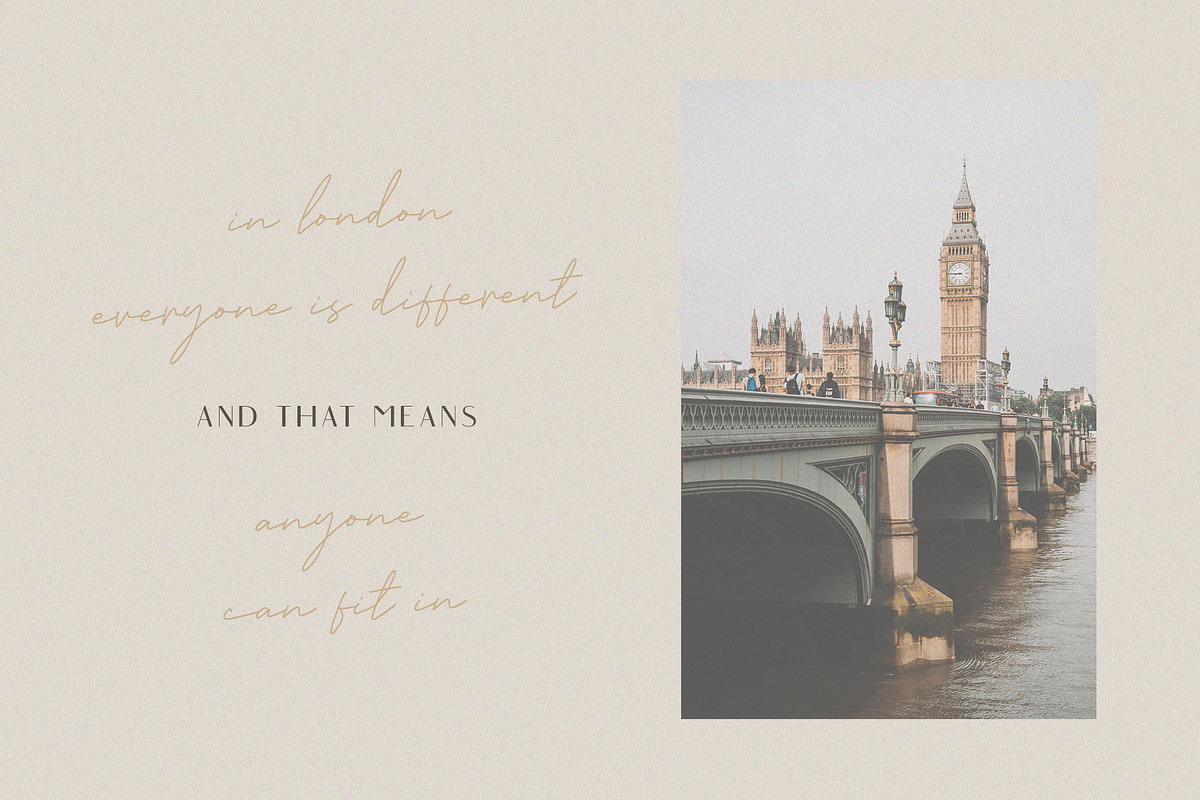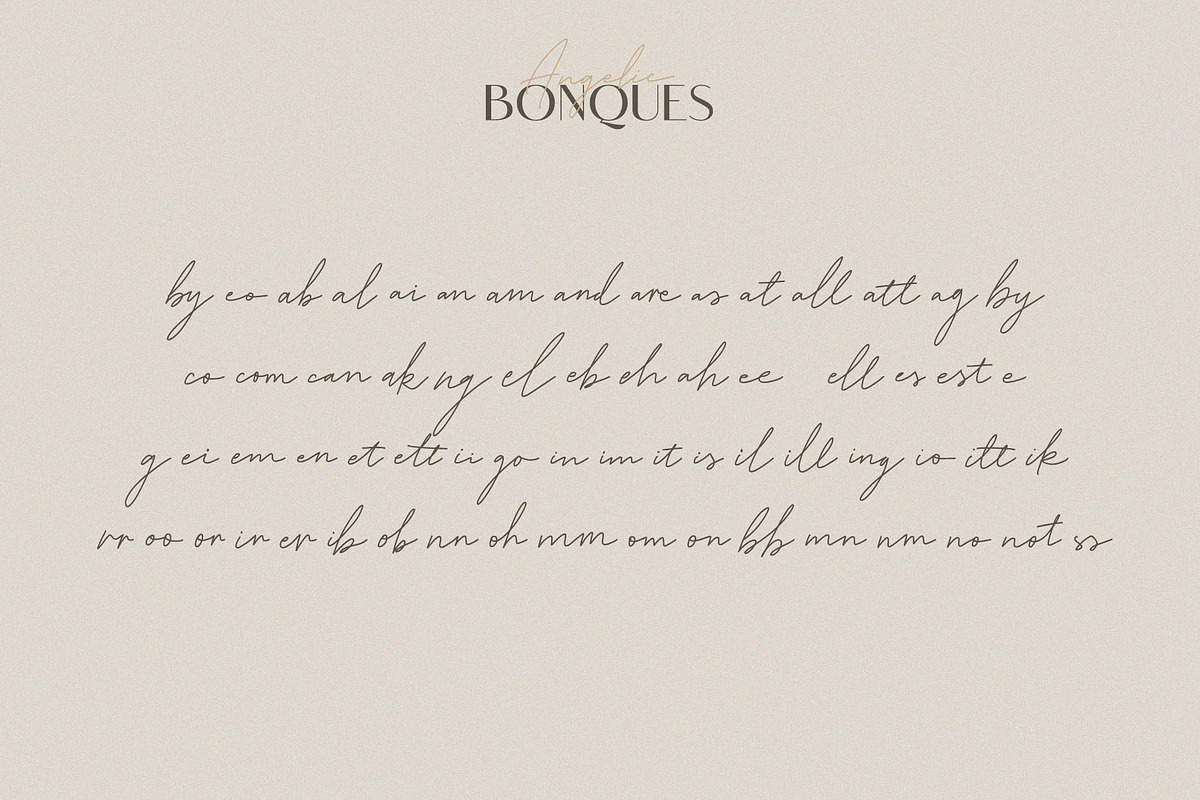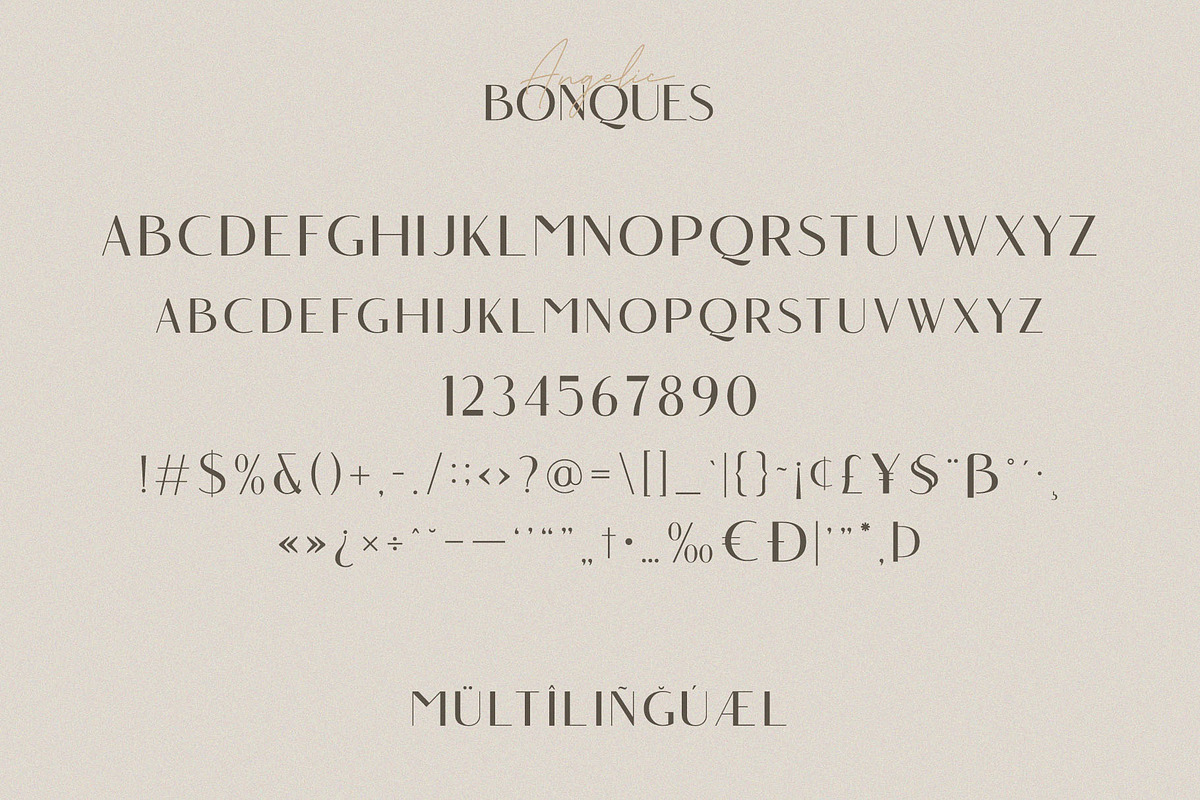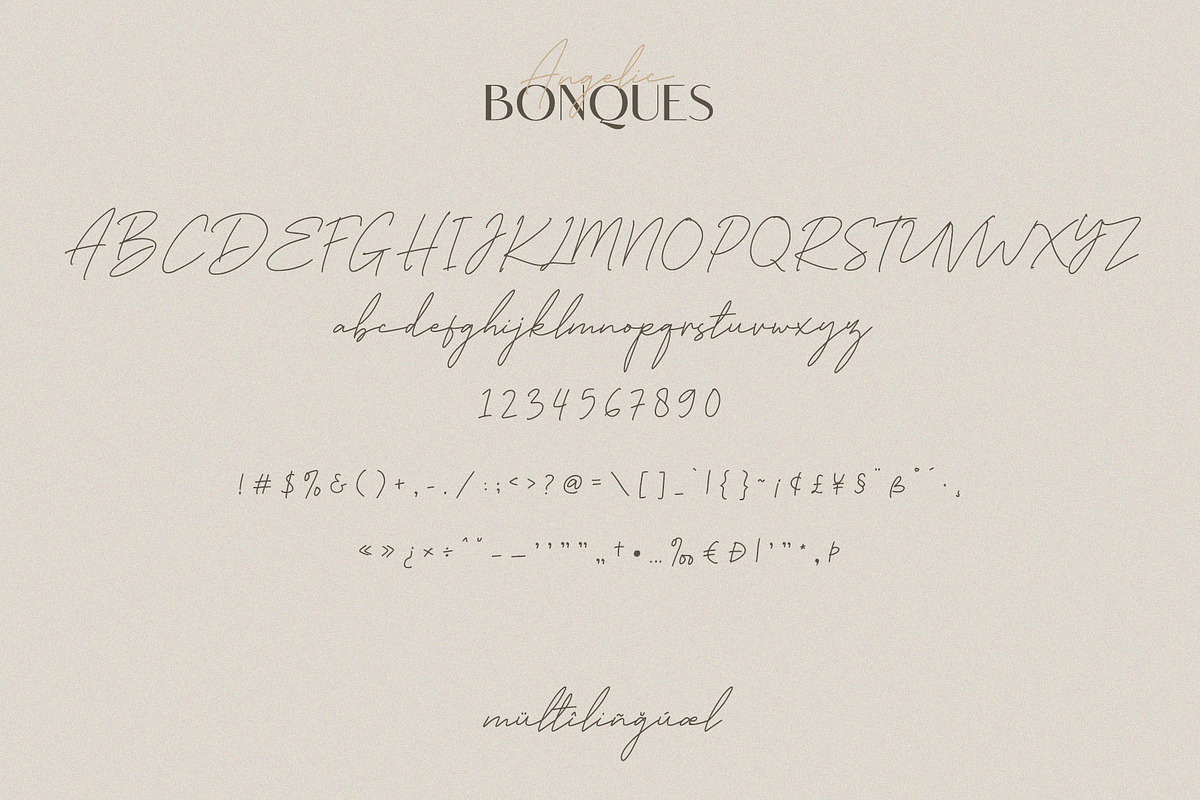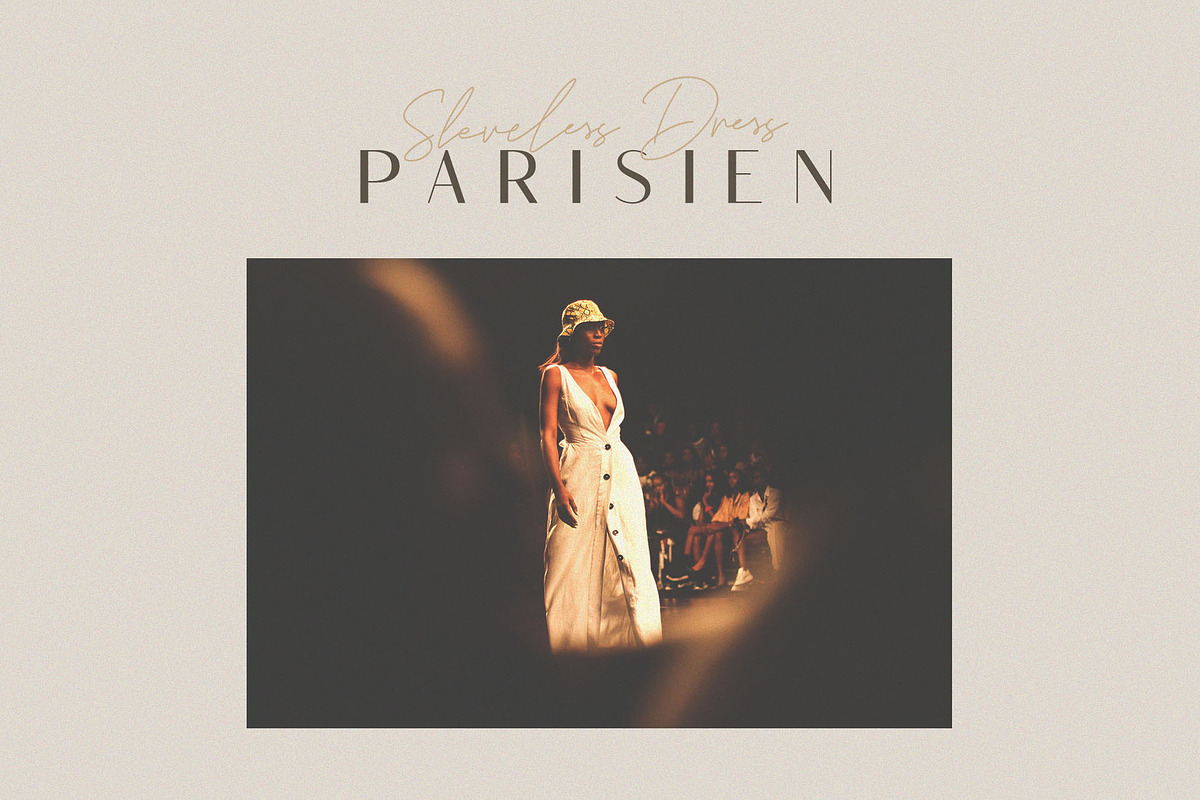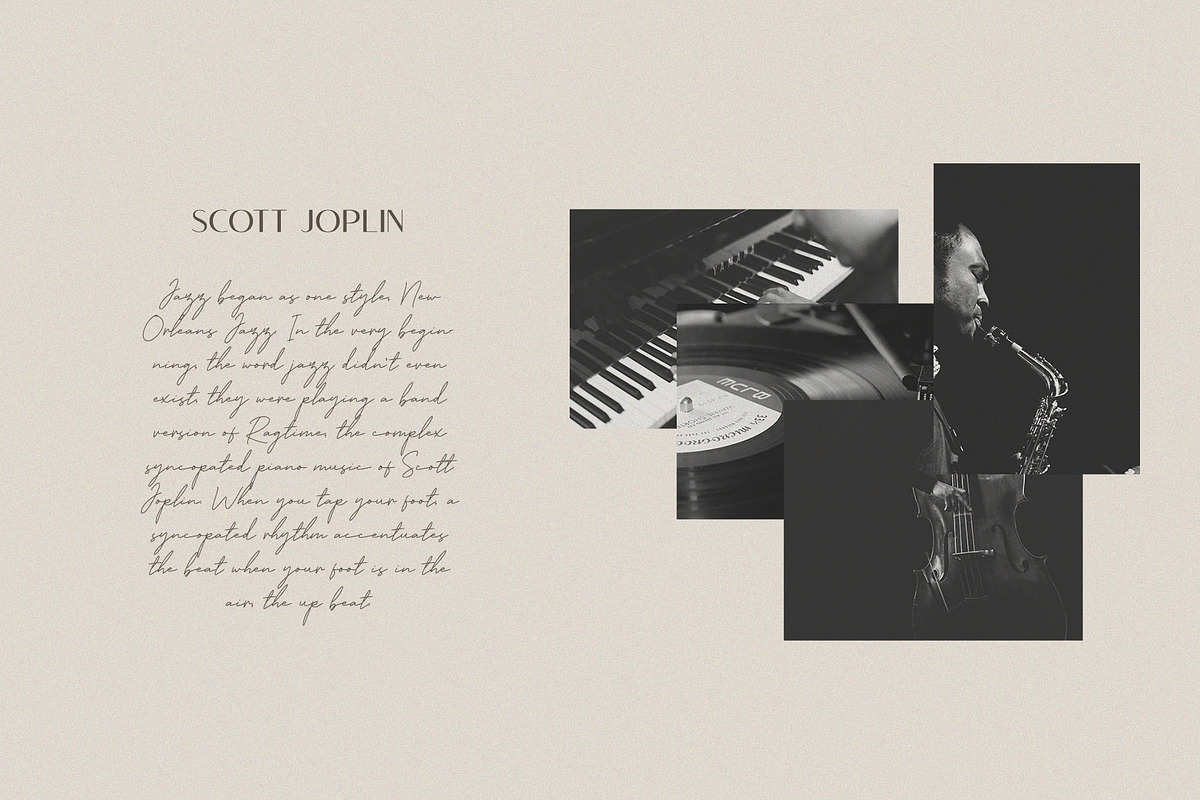
Angelic Bonques - Font Duo
Introducing New Font : Angelic Bonques - Perfect Pair Font Duo
Angelic Bonques - Perfect Pair Font Duo is a combination of an elegant sans serif font & beauty handwritten script font based on the expression of real handwriting. Angelic Bonques - Perfect Pair Font Duo will work perfectly for fashion, e-commerce brands, trend blogs, wedding boutiques or any business that wants to appear upscale and chic.
Angelic Bonques - Perfect Pair Font Duo also Suitable for Logo, greeting cards, quotes, posters, branding, name card, stationary, design title, blog header, art quote, typography, art, modern envelope lettering or book design, happening style like handdrawn design or watercolor design theme, craft design, any DIY project, book title, or any purpose to make your art/design project look pretty and trendy.
1. Uppercase & Lowercase
2. Standard & Special Ligatures ( by eo ab al ai an am and are as at all att ag by co com can ak ng el eb eh ah ee ell es est ei em en et ett ii go in im it is il ill ing io itt ik rr oo or in er ib ob nn oh mm om on bb mn nm no not ss)
3. Numerals & Punctuations (OpenType Standard)
4. Accents/Multilingual characters (AÀÁÂÃÄÅCÇDÐEÈÉÊËIÌÍÎÏNÑOØÒÓÔÕÖUÙÜÚÛWYÝŸỲŸÆŒßÞ)